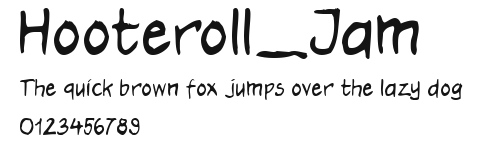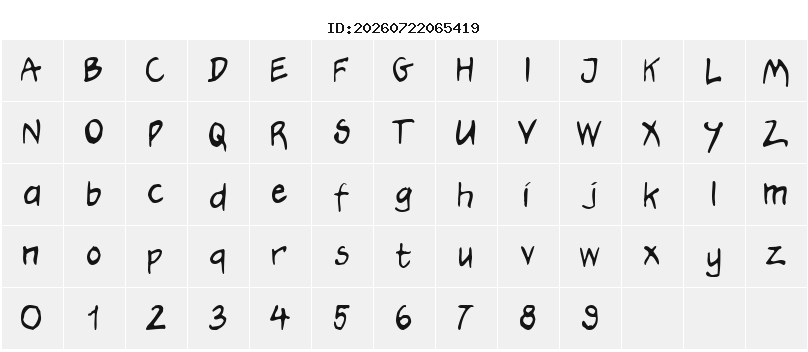
Hooteroll_Jam Preview
• Font Name: Hooteroll_Jam
• Font ID: Macromedia Fontographer 4.1.5 Hooteroll_Jam
• Full Font Name: Hooteroll_Jam
• Version: Macromedia Fontographer 4.1.5 16/11/99
• PostScript Name: HooterollJam
• Character Count: 239
About Hooteroll_Jam.ttf
Hooteroll_Jam.ttf is a modern, elegant sans-serif font designed for ultimate readability and visual harmony. Perfect for branding, headlines, web design, and print materials.